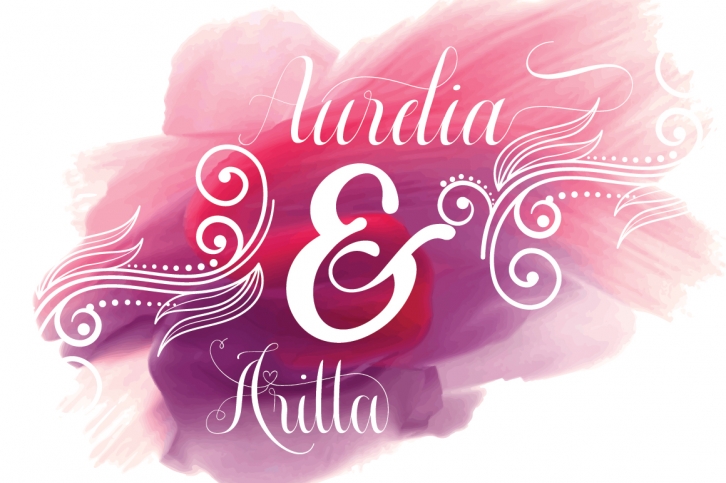
Aurelia duo is a gorgeous font that was realeased on August 10, 2018. The font can be used in many style contexts and design environments. Perfect for invitations, magazines, websites, logos, and more! It was designed by Juniors and the file size is 9.22 MB. Thanks for checking out this font!